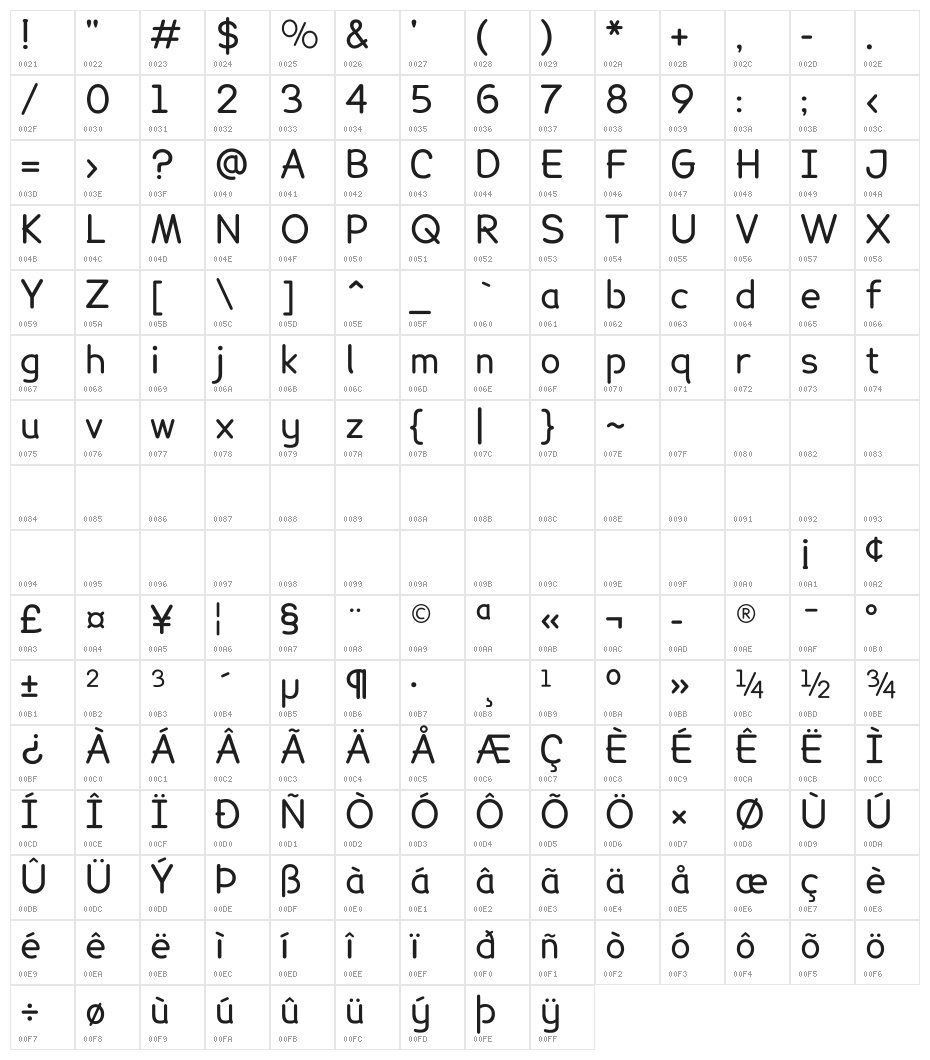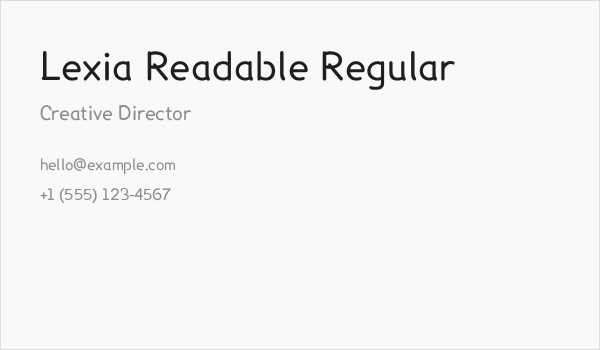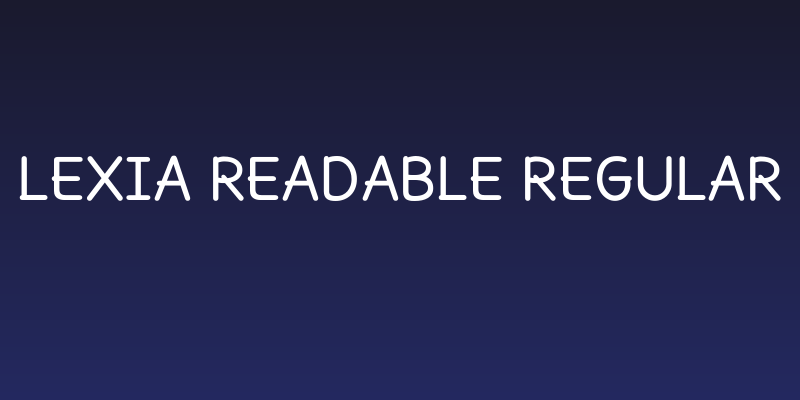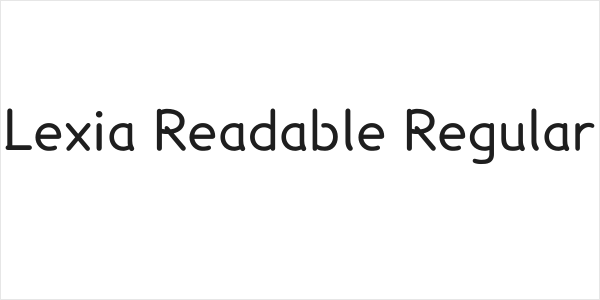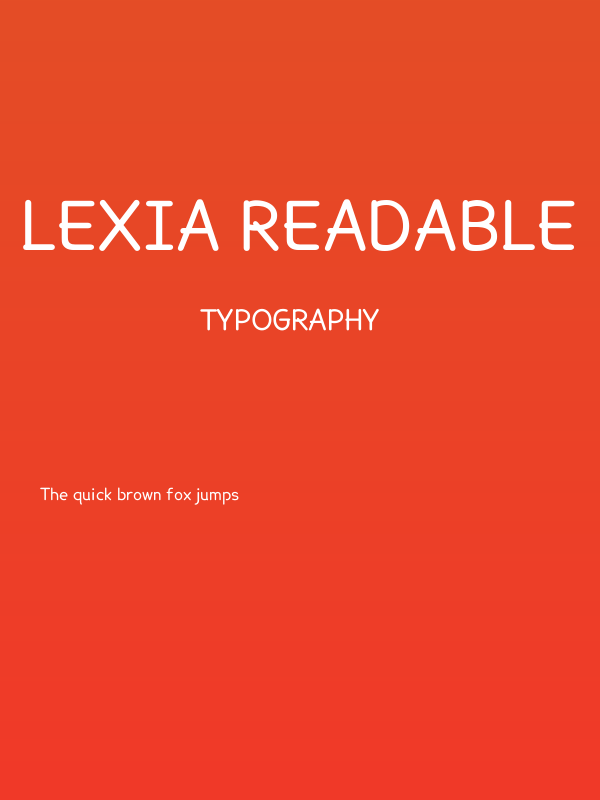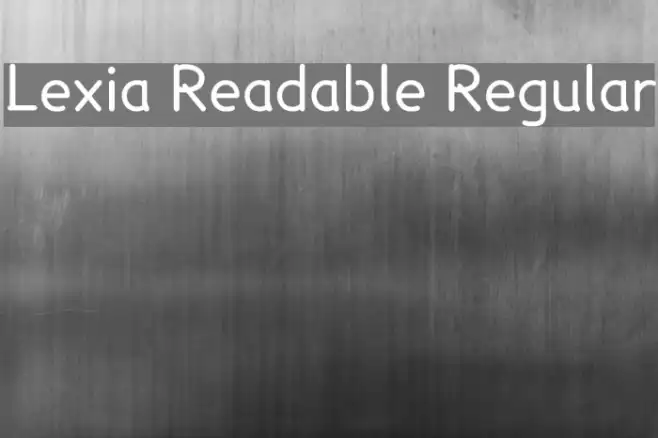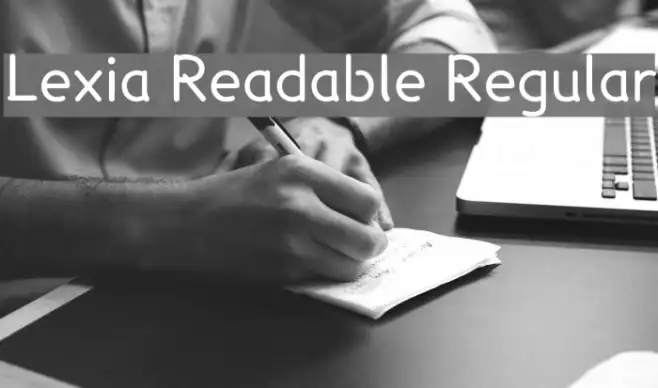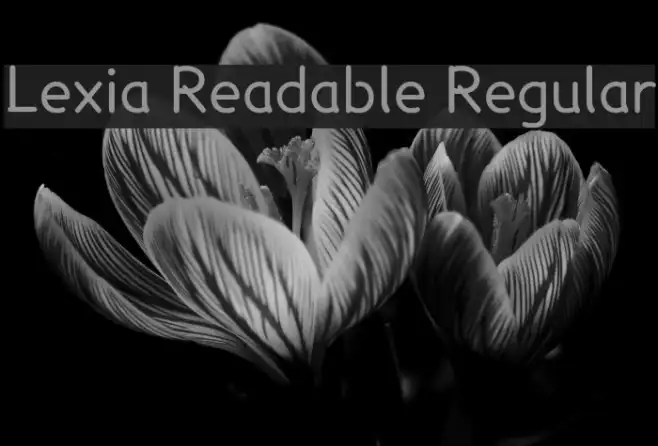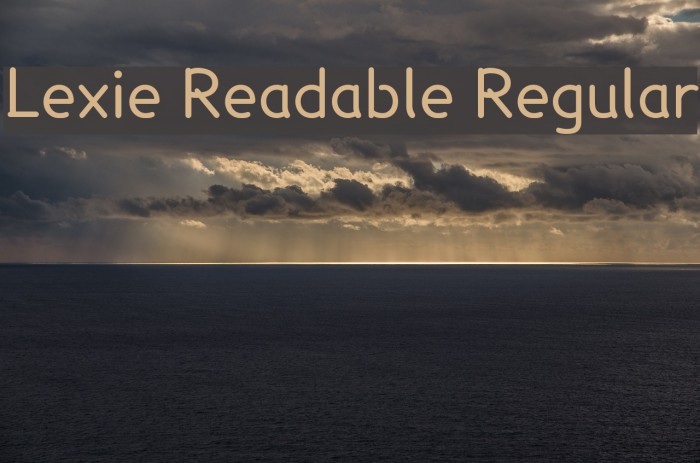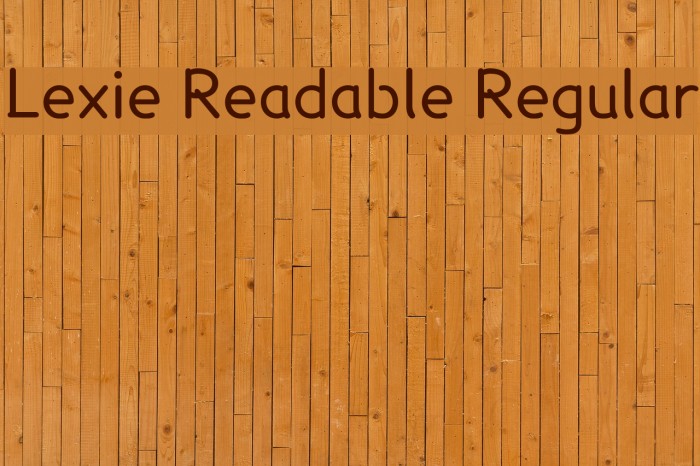
Lexia Readable Regular Font
Lexia Readable Regular Description
This font features a clean and modern sans-serif design, characterized by its rounded edges and uniform stroke width. The letters are well-spaced, enhancing readability and making it suitable for various applications. The uppercase letters are slightly taller than the lowercase, providing a balanced appearance. The numerals are clear and distinct, ensuring easy recognition. Special characters are designed with the same attention to detail, maintaining consistency across the character set. Overall, this font is designed to be highly legible, making it ideal for both digital and print media.
| Use Case | Body text, User interfaces, Educational materials |
| Proposed Projects | Ideal for educational materials, user interfaces, websites, and accessible design projects. |